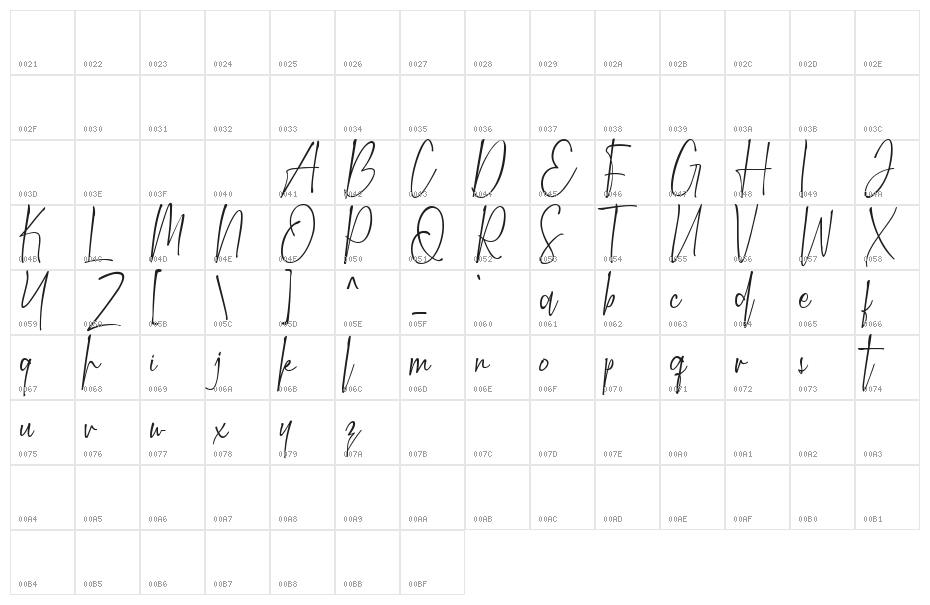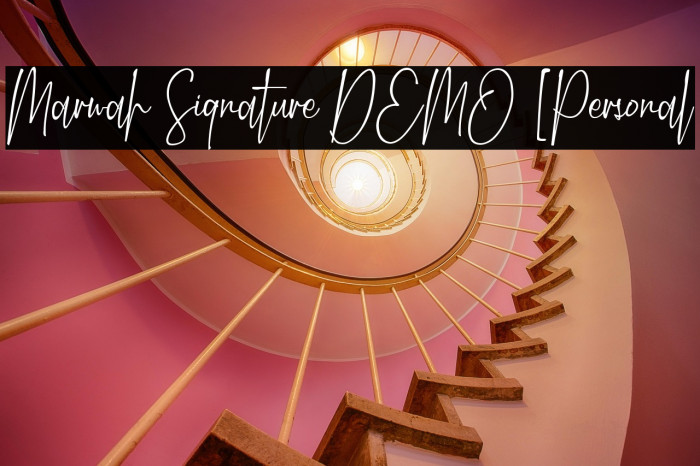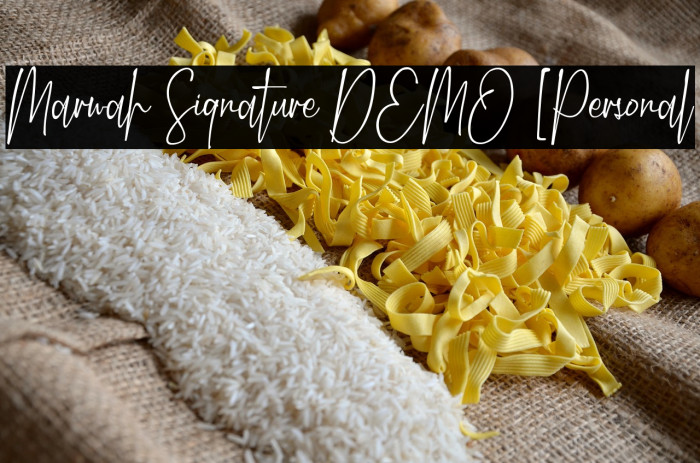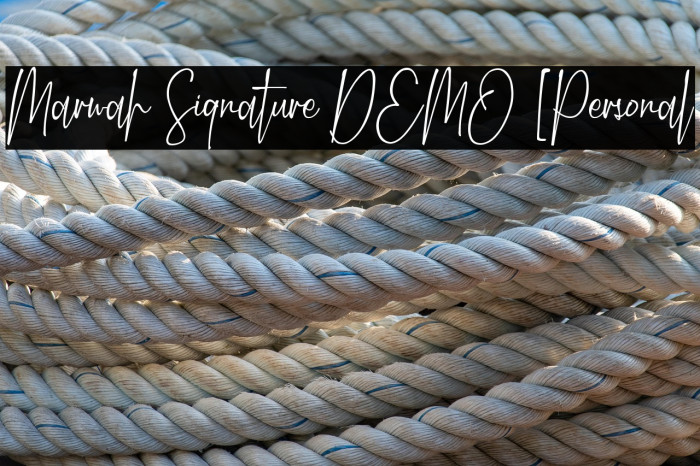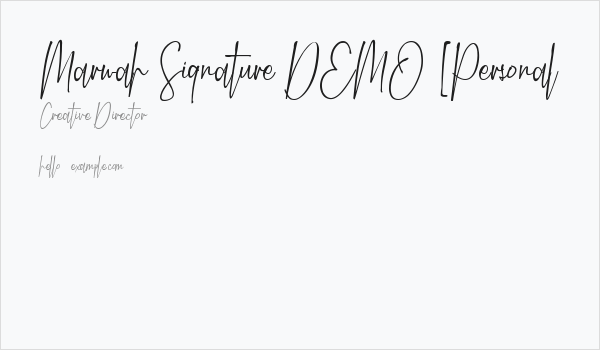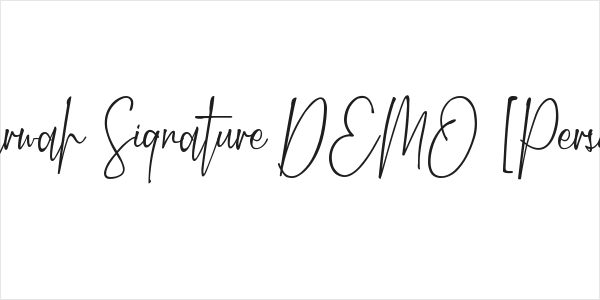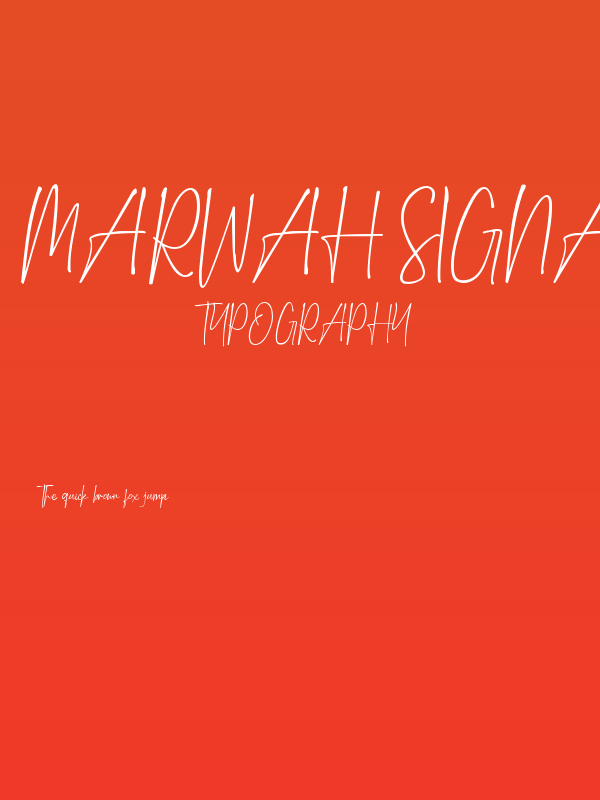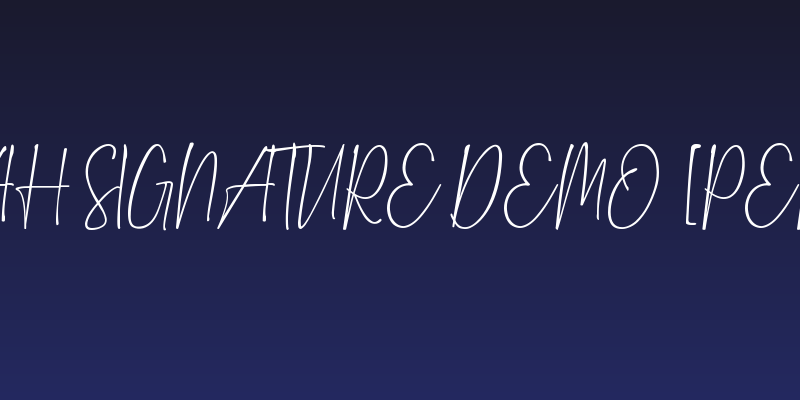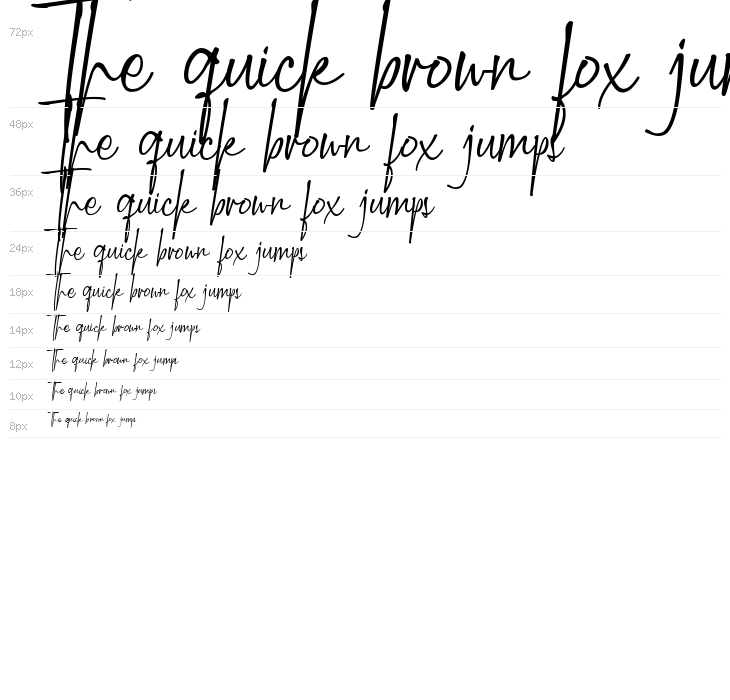
Marwah Signature DEMO [Personal Font
Marwah Signature DEMO [Personal Description
This font features a distinctive handwritten style, characterized by its fluid and elegant strokes. The uppercase letters are tall and slender, with a slight slant that adds to the dynamic feel. Lowercase letters maintain a consistent flow, with some characters extending below the baseline, enhancing the script-like appearance. The numerals are uniquely styled to match the overall aesthetic, and the special characters are seamlessly integrated. This font exudes a personal touch, making it ideal for projects that require a sense of individuality and creativity.
| Proposed Projects | Ideal for personal branding, invitations, greeting cards, and creative projects that require a handwritten feel. |